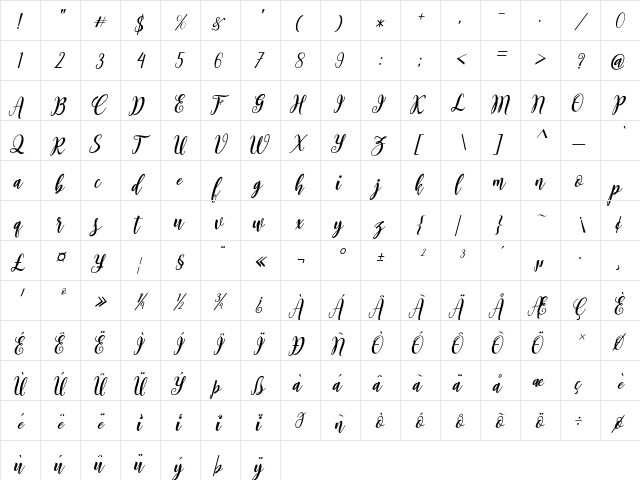
Bointang Cifoy Regular
| Foundry | Adefa Studio |
| Designer | Adefa Studio |
Design Context for Bointang Cifoy Typeface
Bointang Cifoy is a composed and adaptable typeface that performs quietly and consistently across a wide range of design contexts.